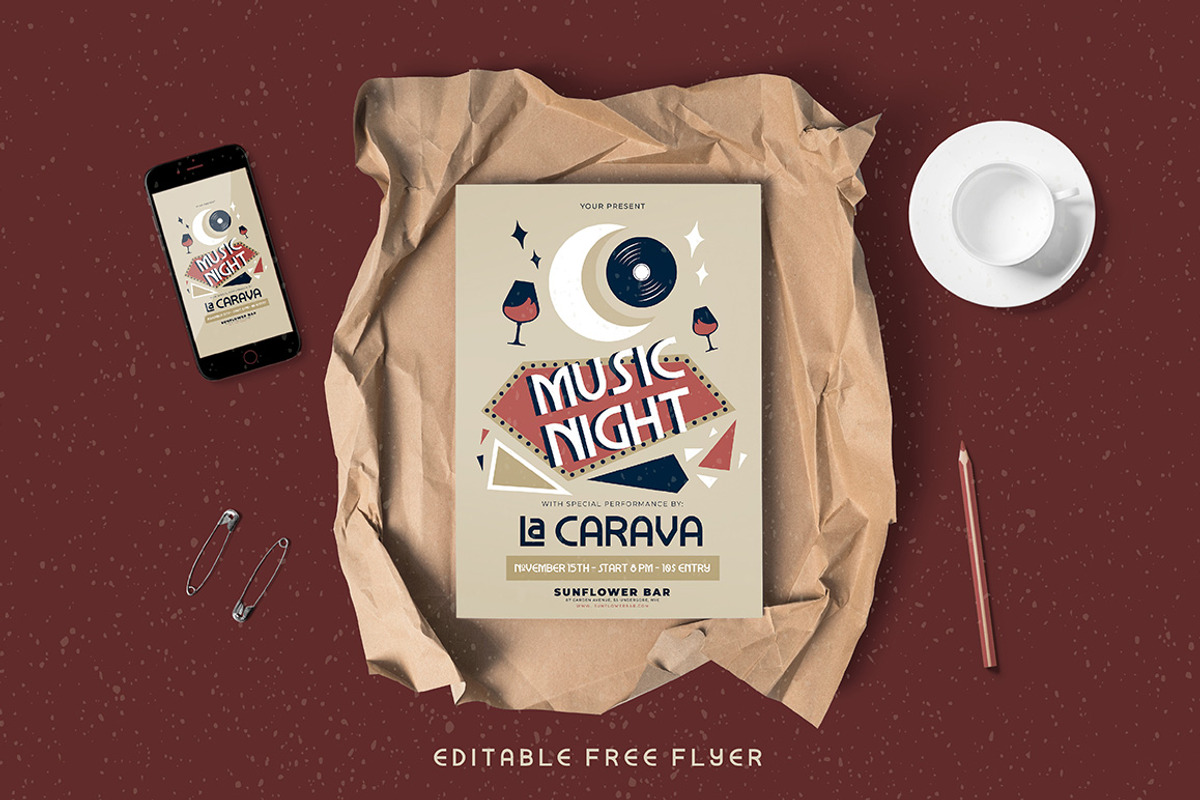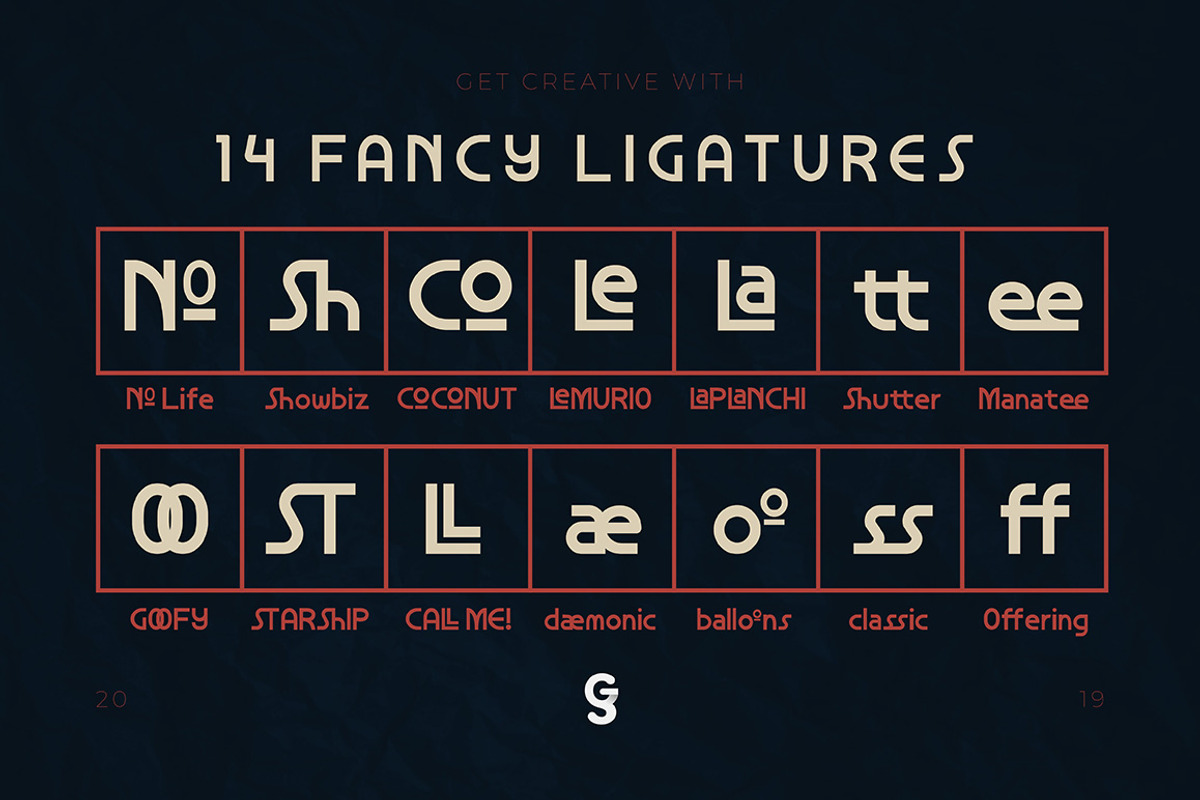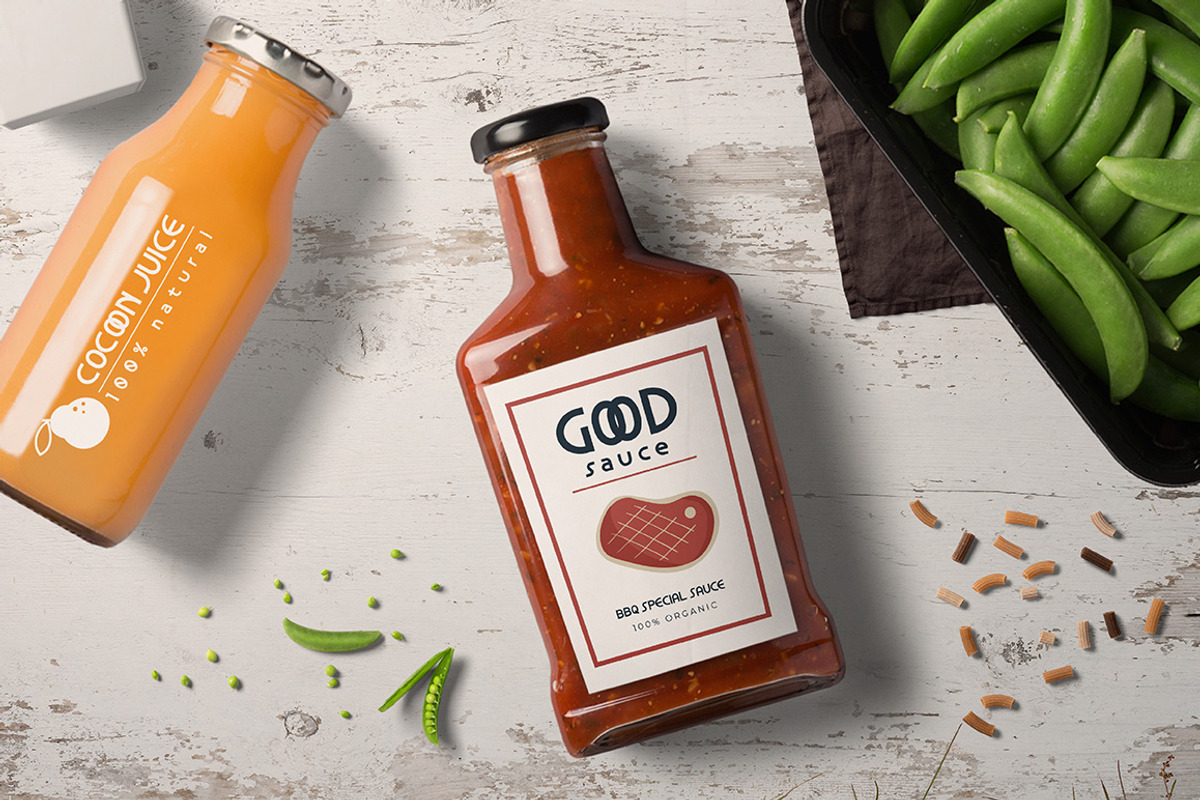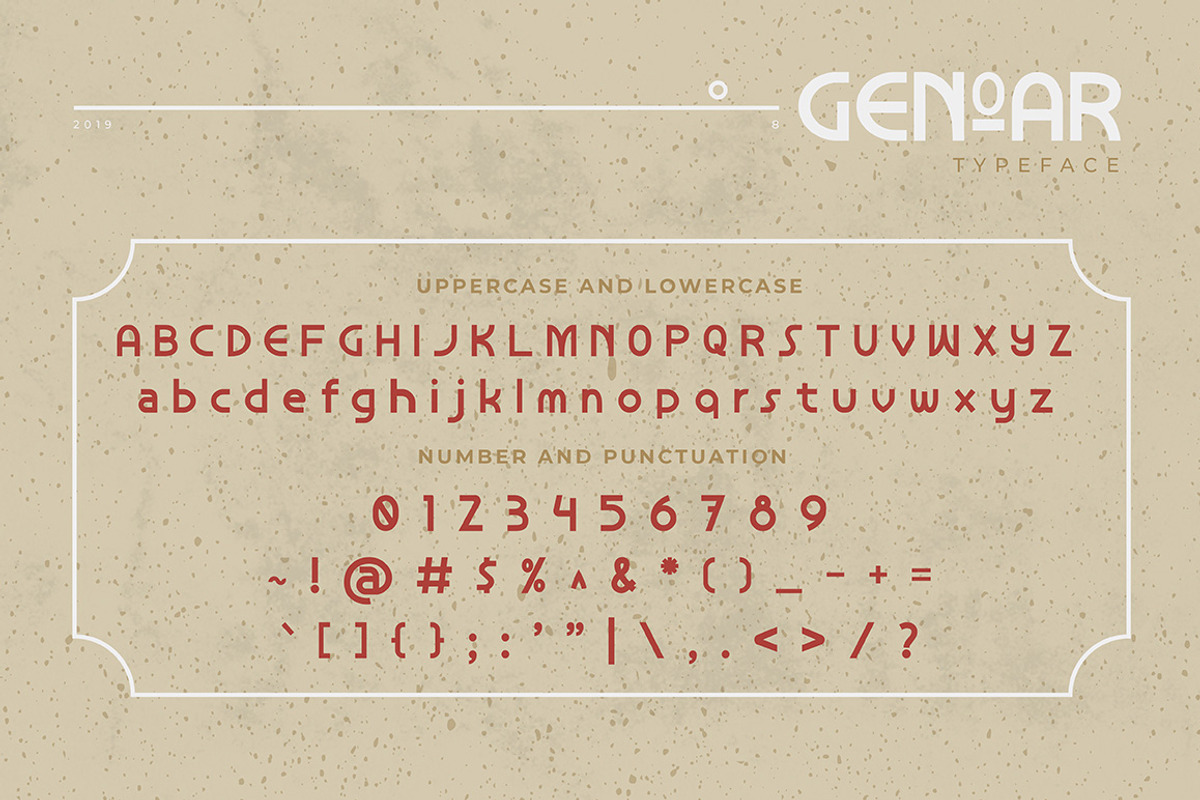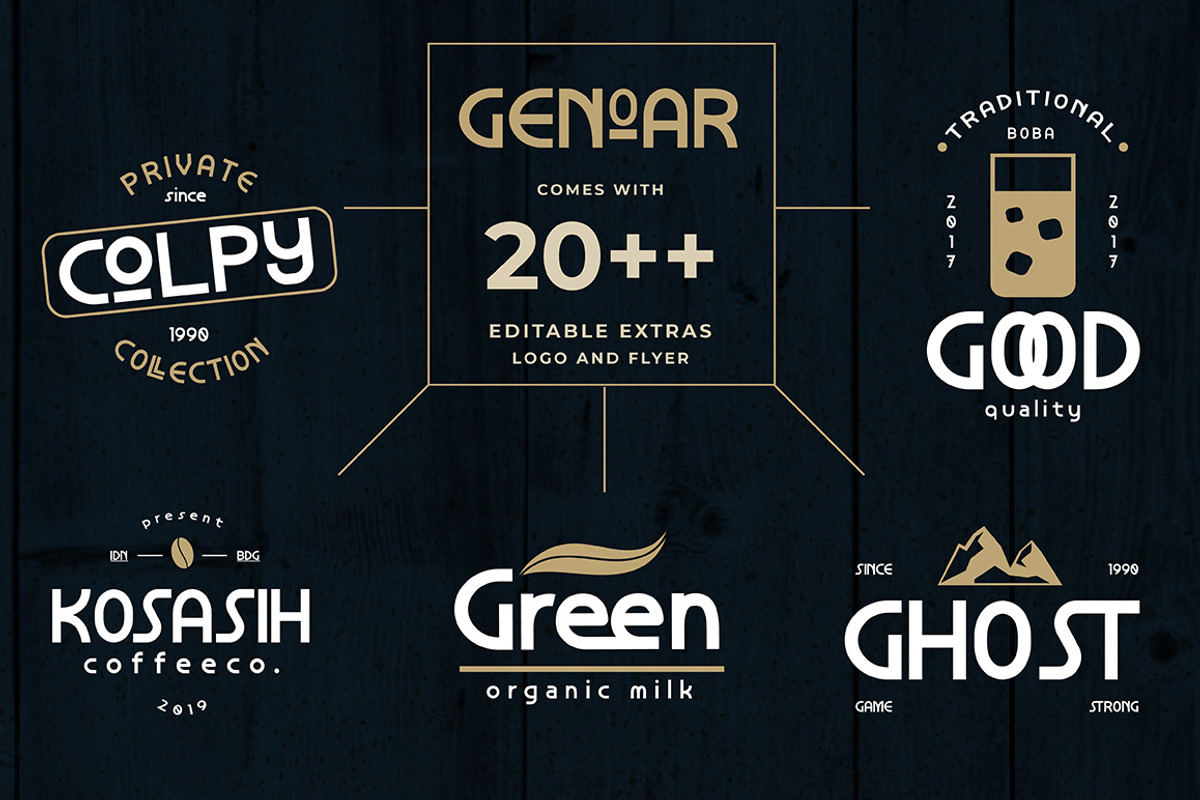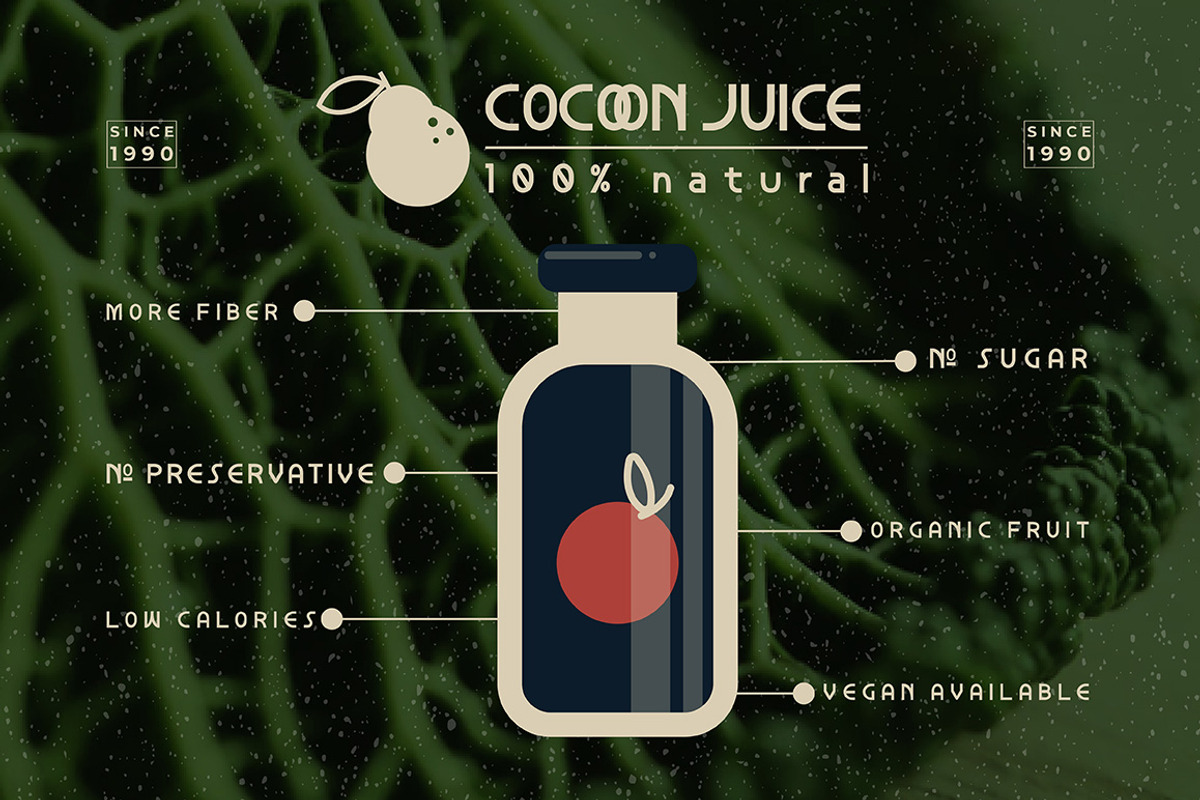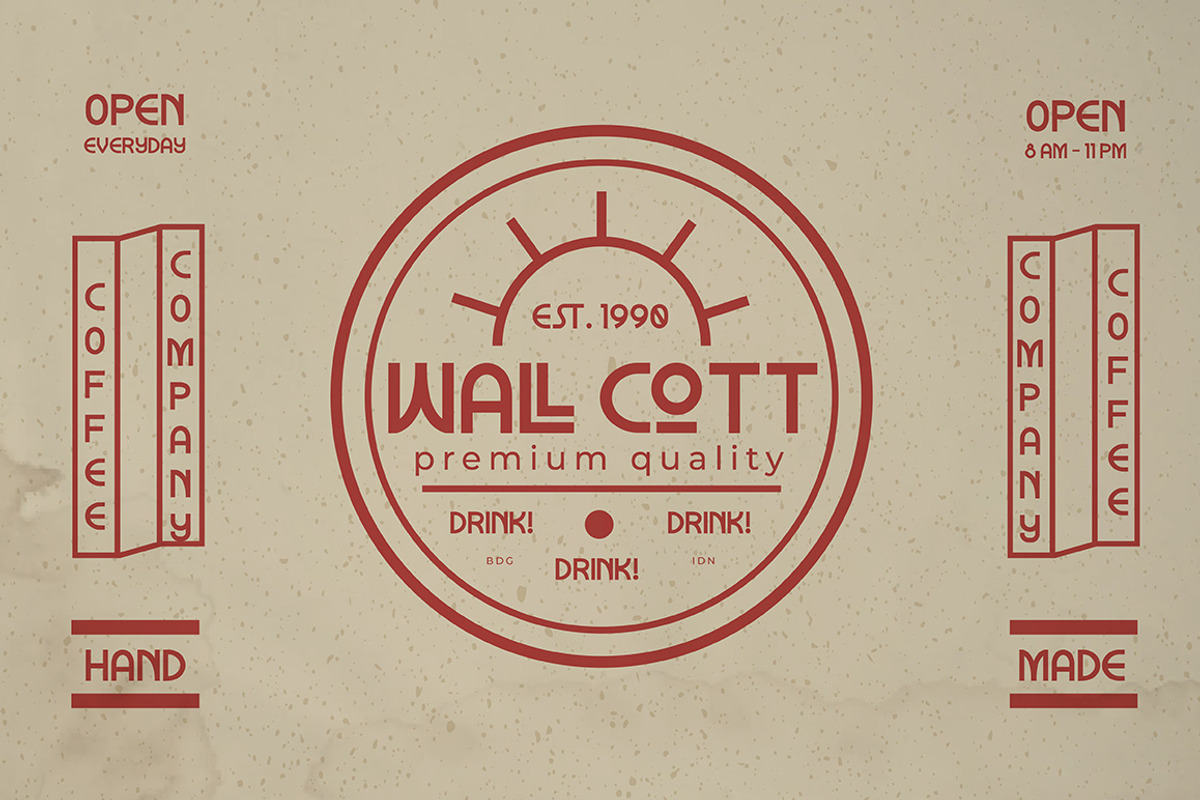
Genoar Typeface + BONUS
Genoar Typeface + Bonus
Genoar Typeface is a neomodern typeface inspired by retro futurism visual and contemporary art. It looks simple and dynamic. Genoar can be useful as display with special ligatures. You can also use bonuses to create many possibilities creation design. Made to fit some themes event like Industrial, Modernism, Retro, Organic, New Year even Birthday party.
Genoar Typeface 100% perfect for headings, logo type, quotes, apparel design, invitations, flyer, poster, greeting cards, product packaging, book cover, printed quotes, cover album, movie, or any design requirements that you need.
Badges & Vector Illustration
- Genoar can be useful as display with special ligatures.
Genoar Typeface + BONUS by Gumico Studio. fits naturally into Branding, posters, packaging, typography.